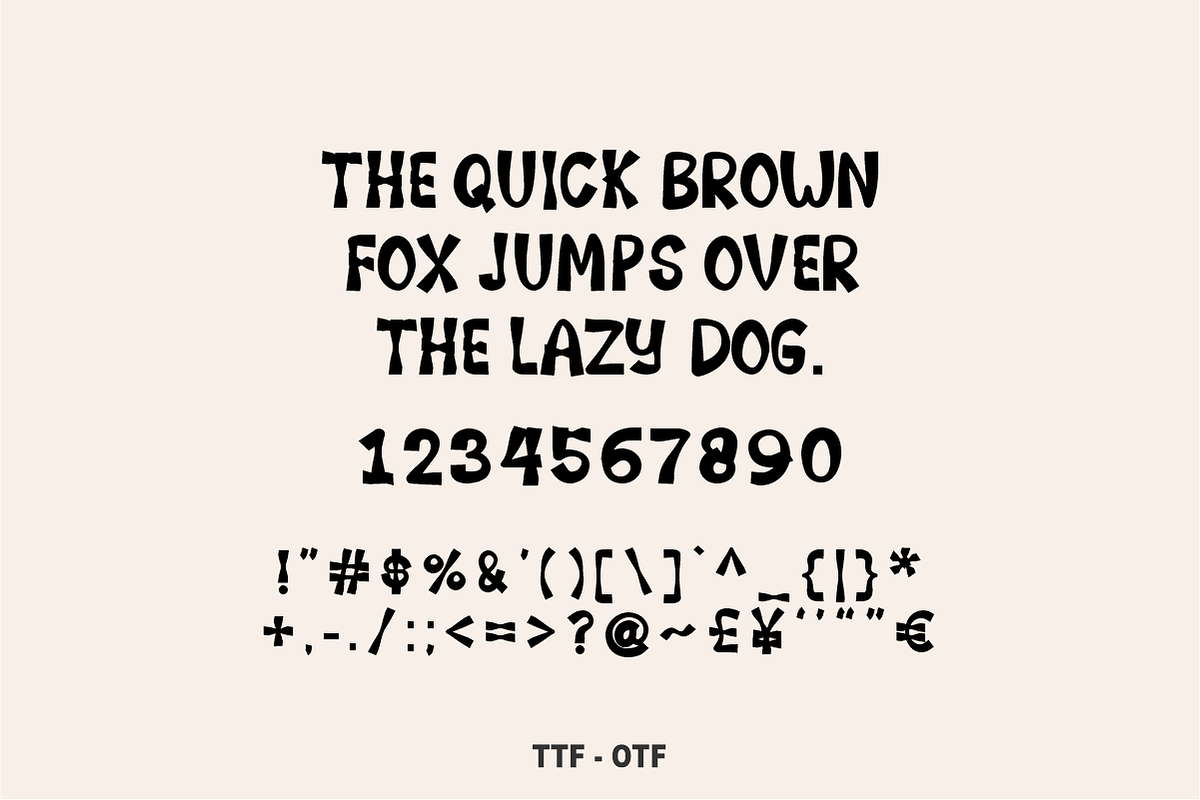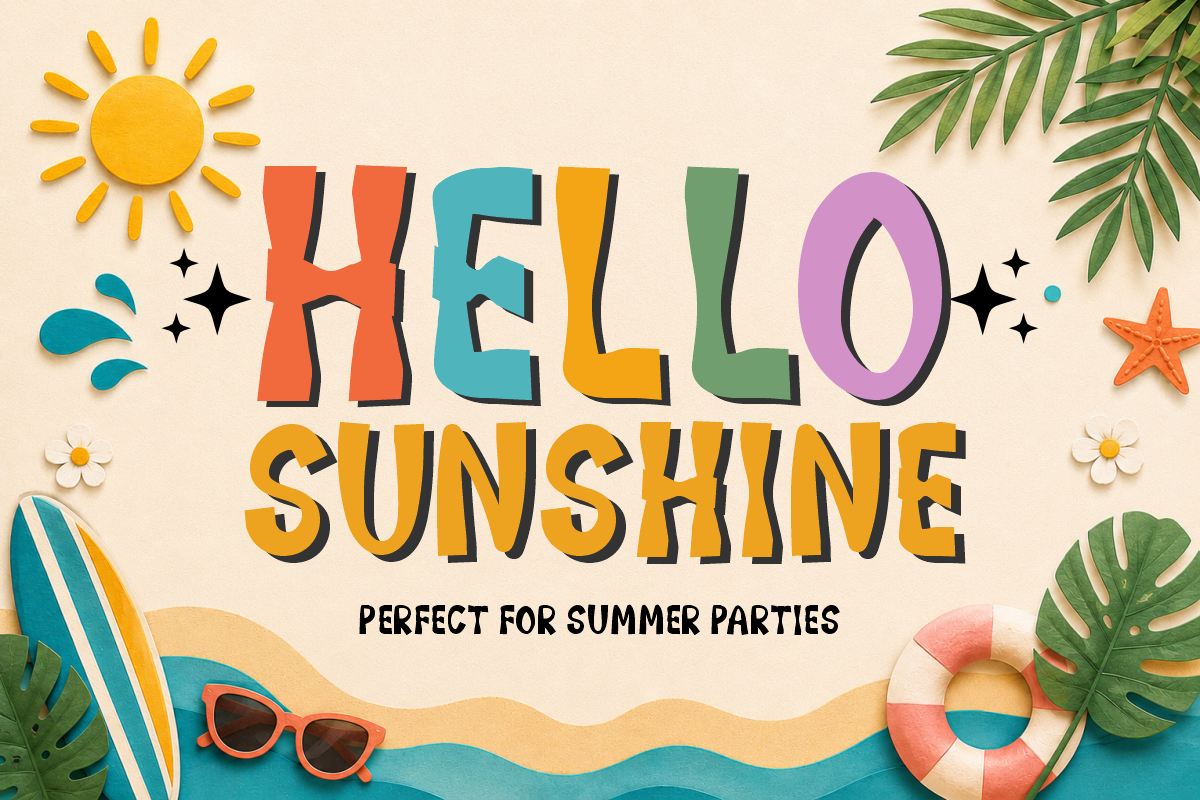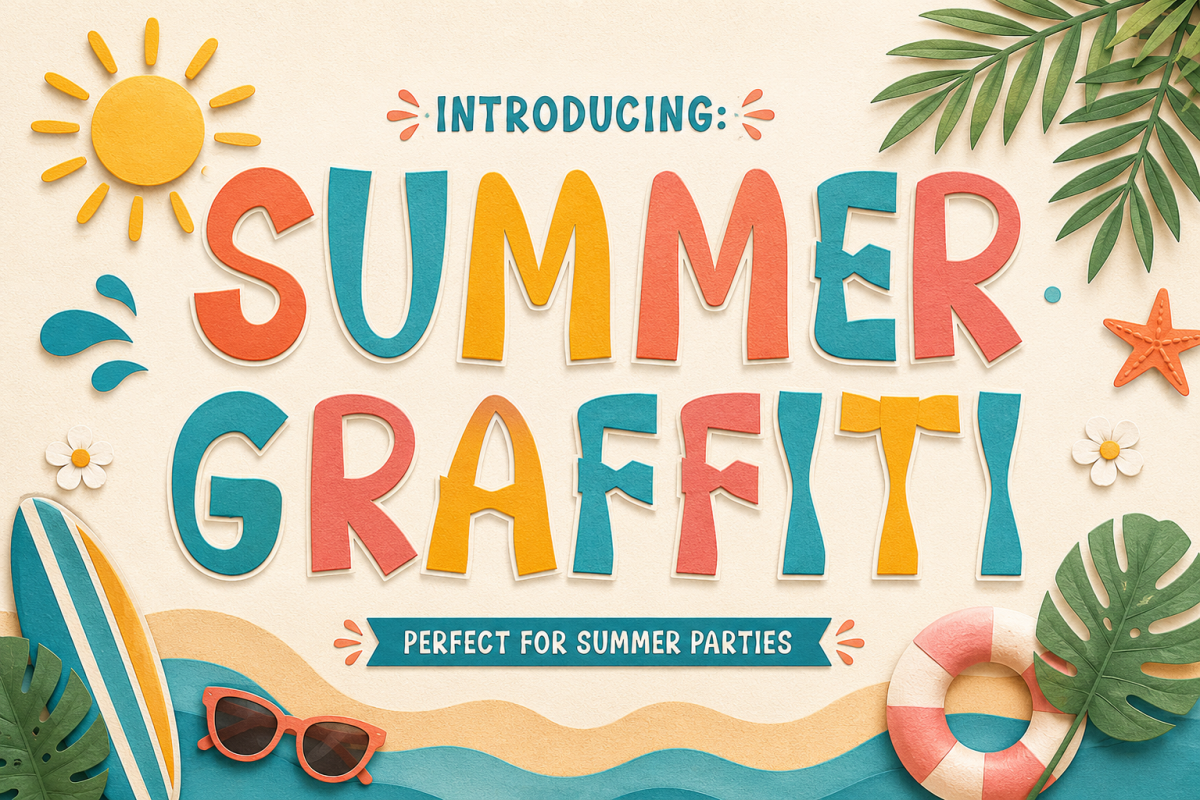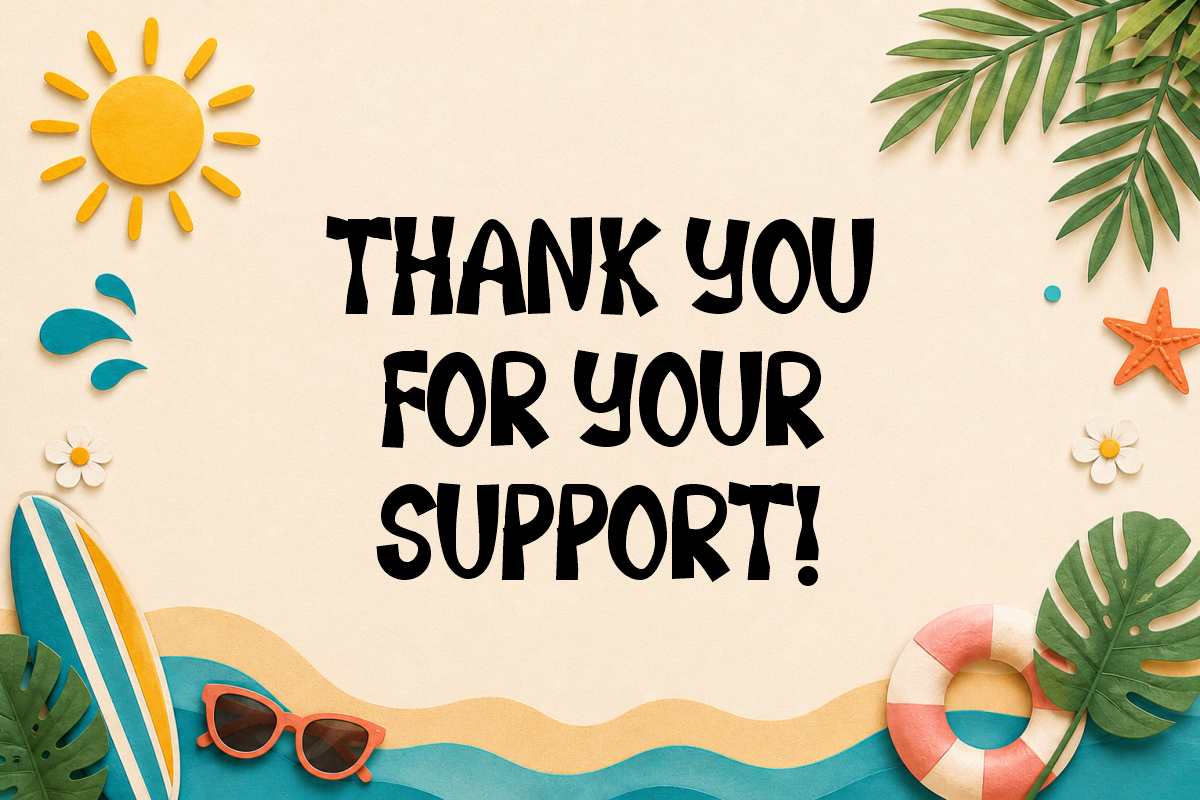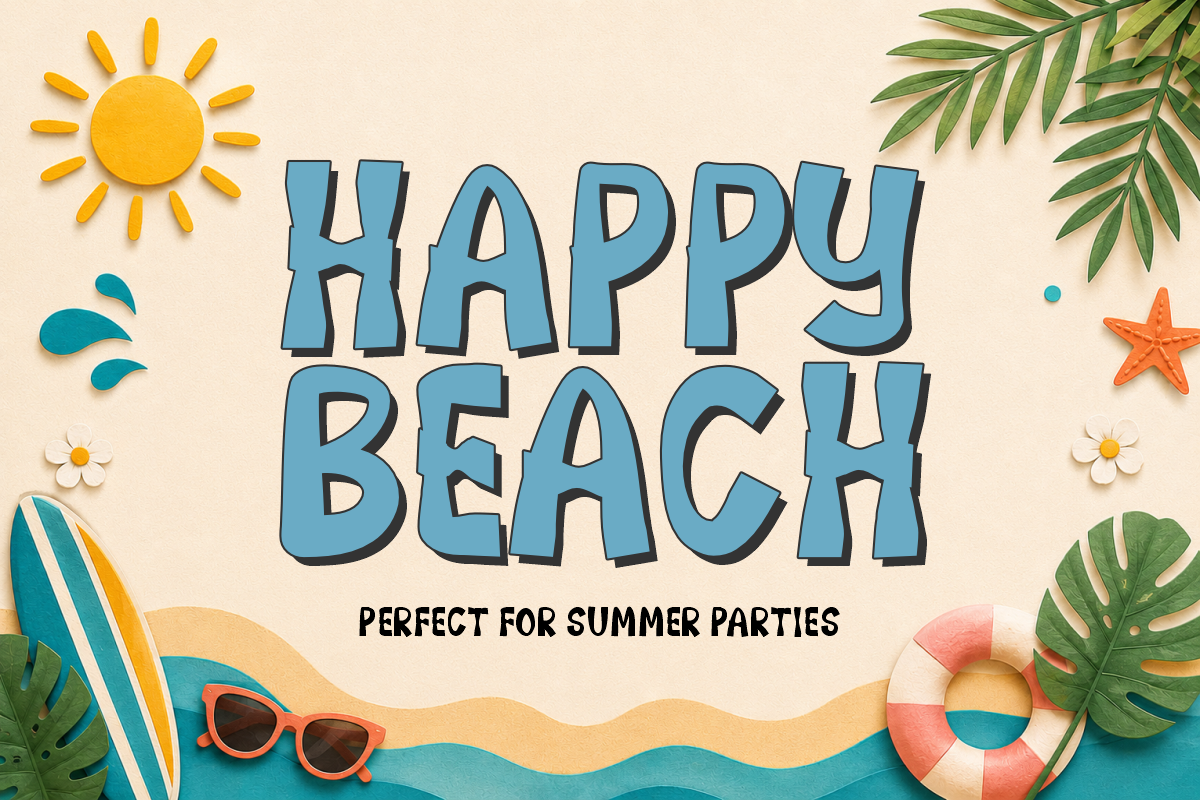
Summer Graffiti- Tropical Craft Font
Summer Graffiti - Tropical Craft Font
Summer Graffiti is a vibrant, fun display font featuring bold, paper-cut style letterforms with a playful tropical vibe. Packed with sunny beach energy and cheerful handmade charm, this carefree summer font brings a bright, festive pop to your vacation shirts, summer party decor, and creative craft projects. Every character is cleanly vectorized to guarantee high-resolution prints and smooth, effortless cutting on Cricut and Silhouette machines.
Uppercase Character Set
Numbers & Basic Punctuation
Ideal For:
Cricut, Silhouette, and HTV vinyl cutting projects for beach party banners, summer apparel, and vacation gear
Etsy sellers creating custom tropical t-shirts, pool party printables, and summer merchandise
Print-on-Demand (POD) products, sublimation tumblers, tote bags, and swimwear graphics
Canva template creators designing summer event flyers, birthday party invitations, and social media kits
Custom die-cut sticker packs, planner decals, and summer vacation scrapbooking
Teachers Pay Teachers (TpT) authors making fun end-of-year classroom activities and bulletin board headers